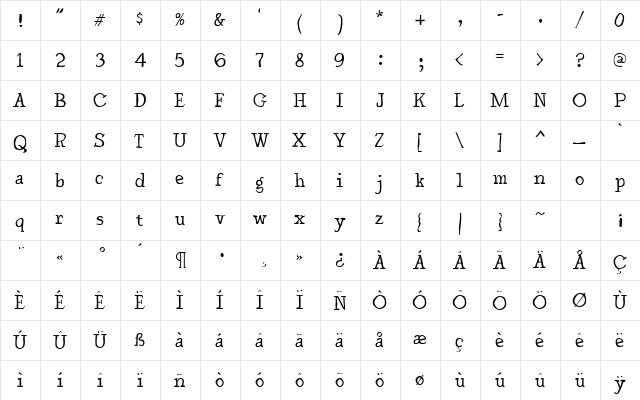
Dschoyphul Regular
Design Context for Dschoyphul Typeface
Dschoyphul offers clean, dependable letterforms without strong stylistic allegiance, making it a practical choice for designers who need flexibility.